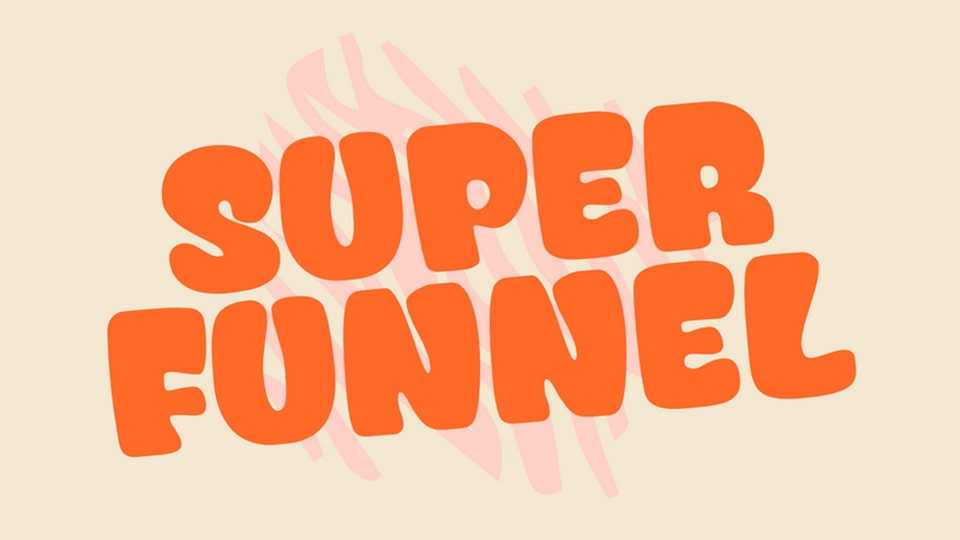
Download Super Funnel font, a hand crafted typeface that combines boldness, playfulness, and cuteness into a delightful cartoon typeface. Every letter in this font is a burst of joy, featuring confident strokes, whimsical details, and an overall lighthearted charm.